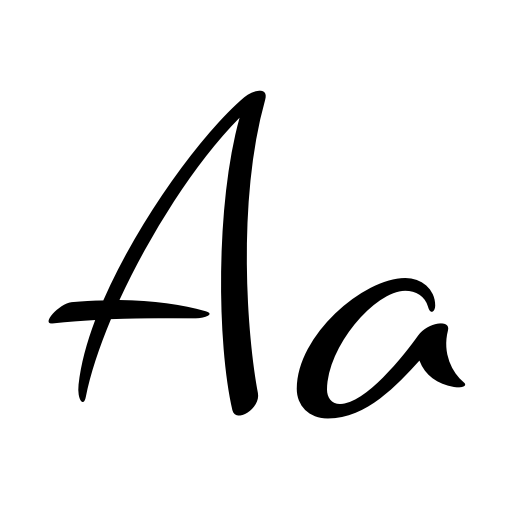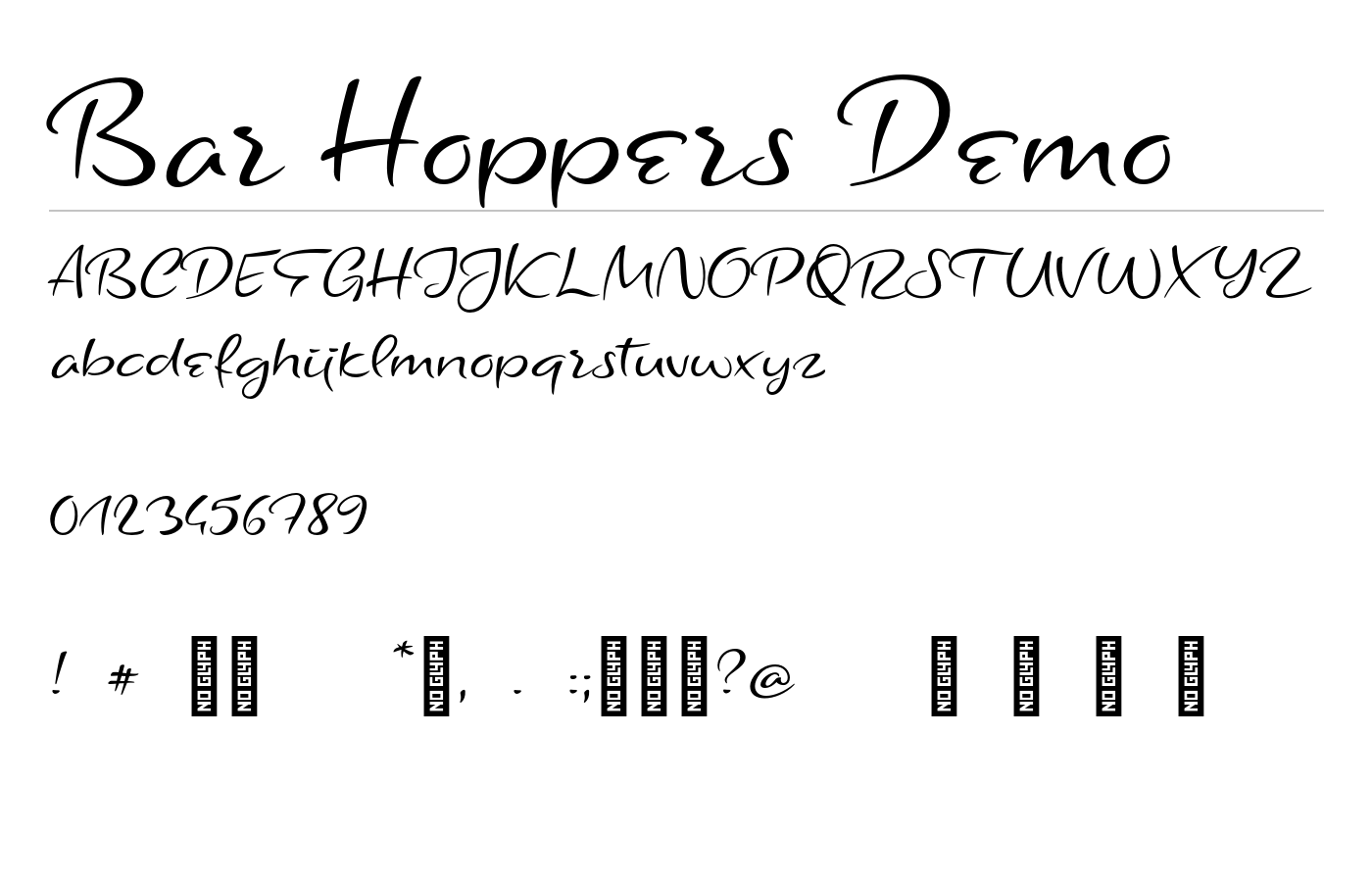
Bar Hoppers Demo is a lively script font with a casual, handwritten feel characterized by smooth, flowing strokes and moderate contrast. Its lightly slanted, airy letterforms create a friendly yet elegant personality, making it perfect for informal branding, invitations, and stylish headlines. This font works well where a relaxed and approachable handwritten touch is desired, lending warmth and personality without sacrificing readability.
Bar Hoppers Demo Font
About Bar Hoppers Demo Font
| Font family | Bar Hoppers Demo Font |
| Designer | Roland Hüse |